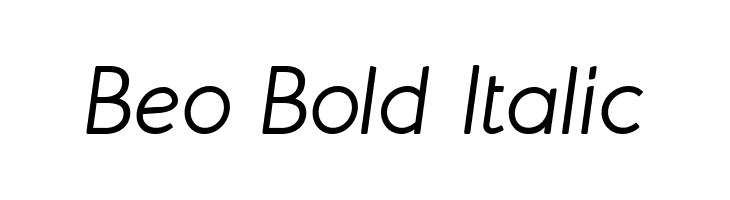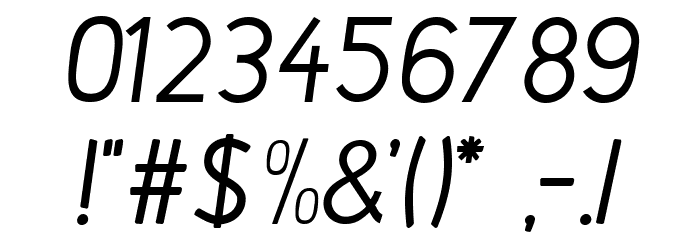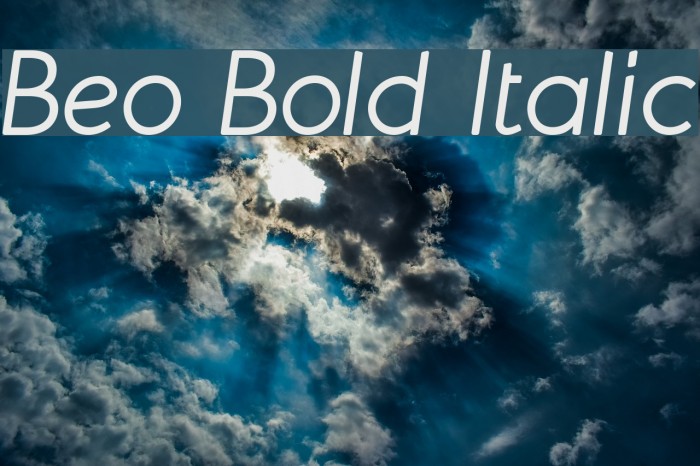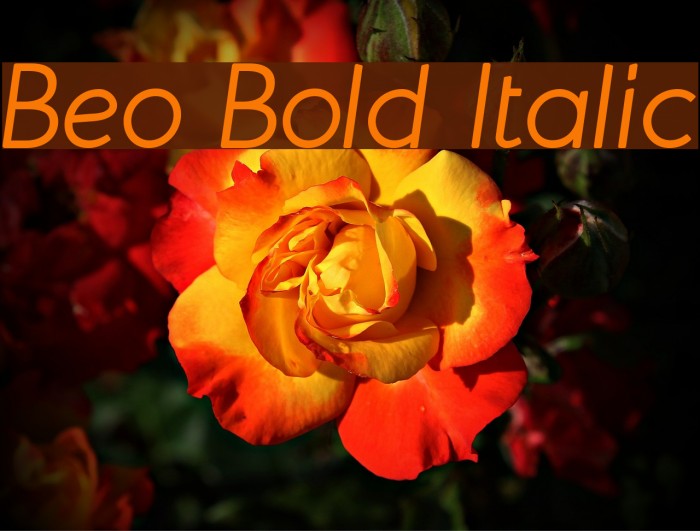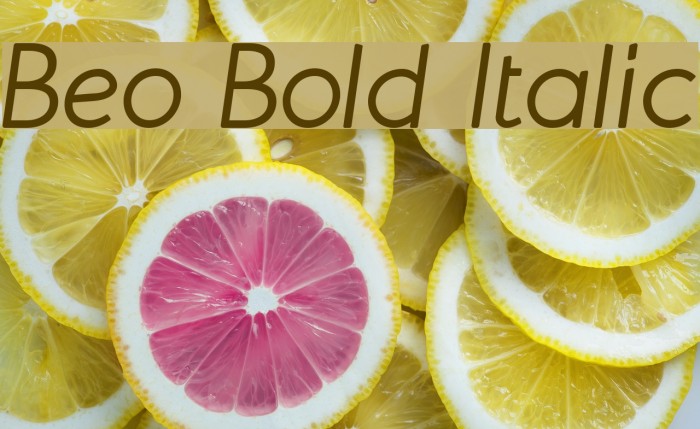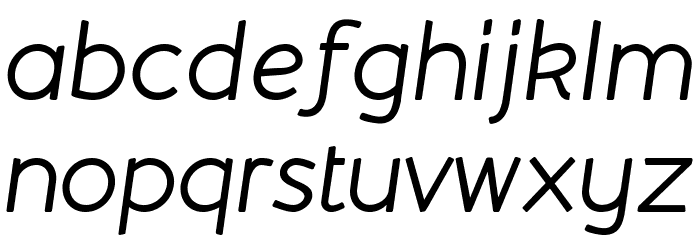
Beo Bold Italic Font
This font exhibits a sleek and modern design with a clean, sans-serif style. The characters are slightly italicized, giving a sense of motion and dynamism. The bold weight adds a strong presence, making it suitable for impactful headlines and titles. The letterforms are well-proportioned with a consistent stroke width, ensuring readability and clarity. The numbers and special characters maintain the same stylistic features, providing a cohesive look across all glyphs. The overall appearance is contemporary and professional, making it versatile for various design applications.
A modern, bold, italic sans-serif font with clean lines and dynamic style.
• Category: Sans-Serif
• Overall Style: Modern
• Use Case: Headlines, Logos, Branding